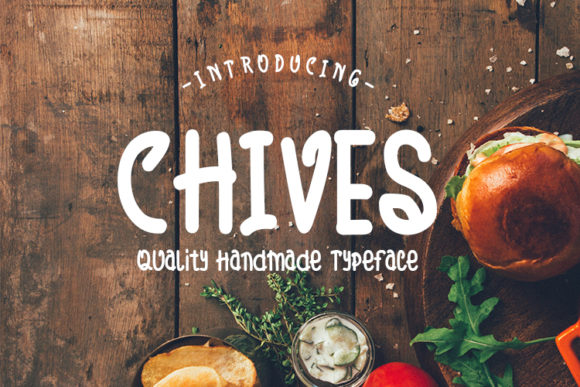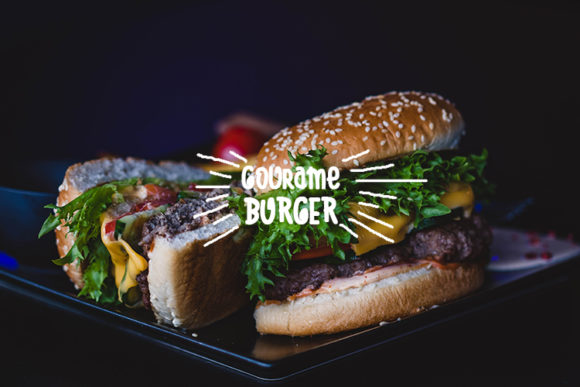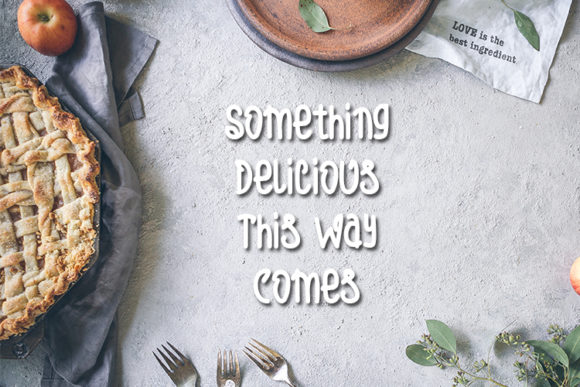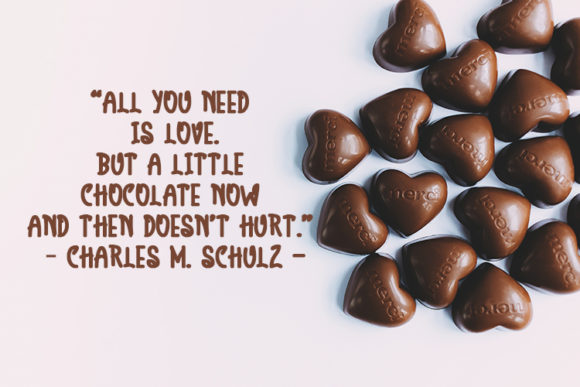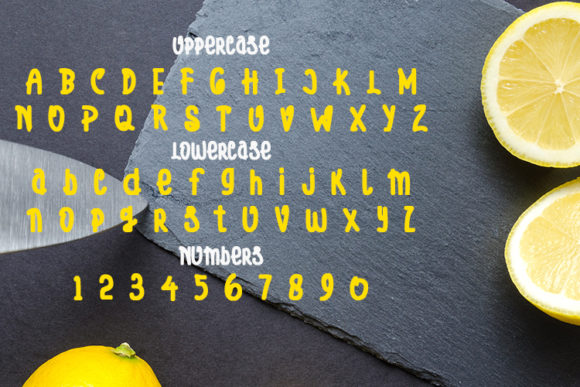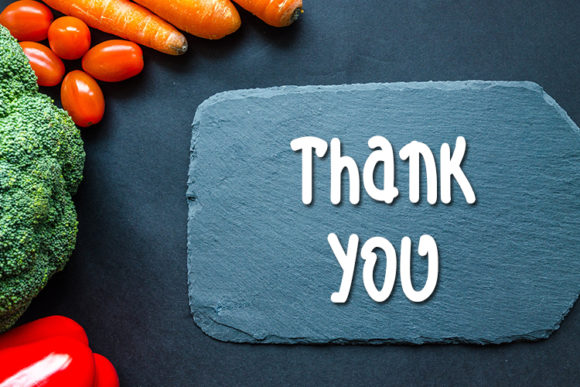
Chives Font
About Chives Font
The Chives is a new typeface for all your tasty designs! It’s a collection of all-caps characters mixed with some lowercase ones, and has a delightfully hand-written feel!